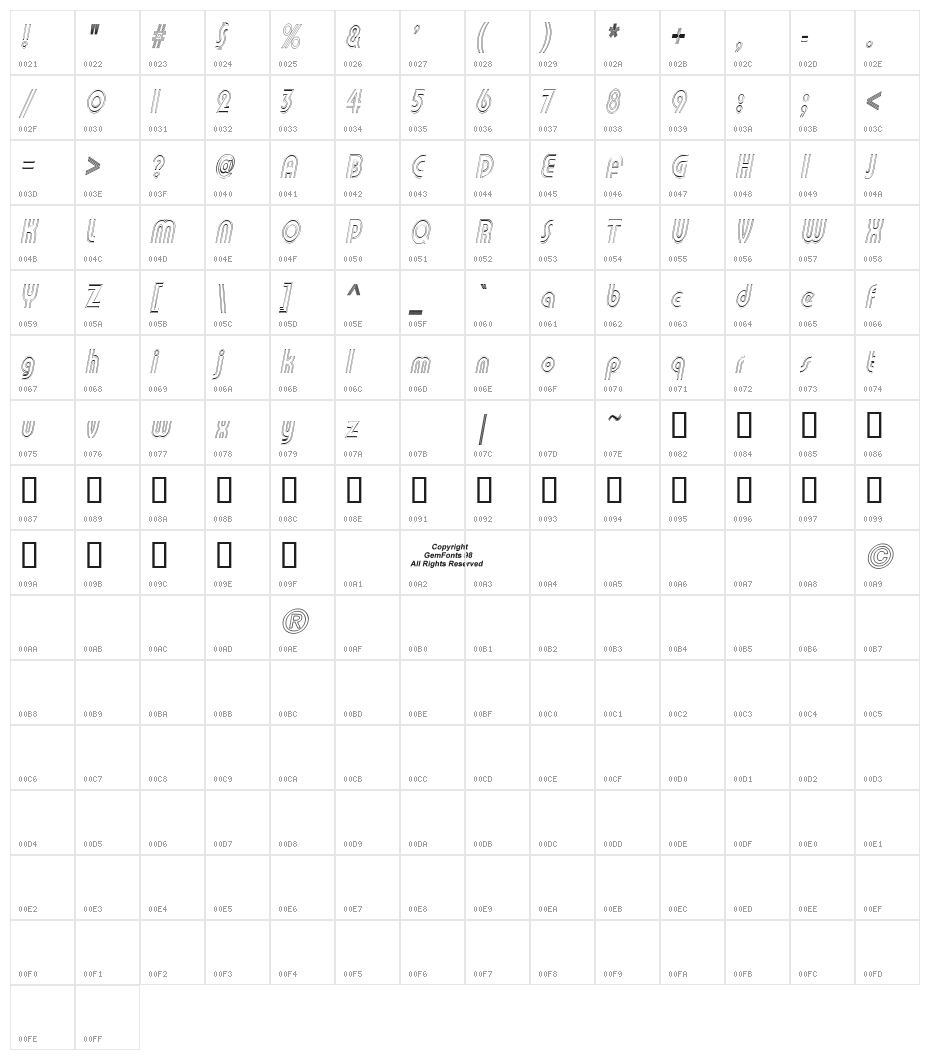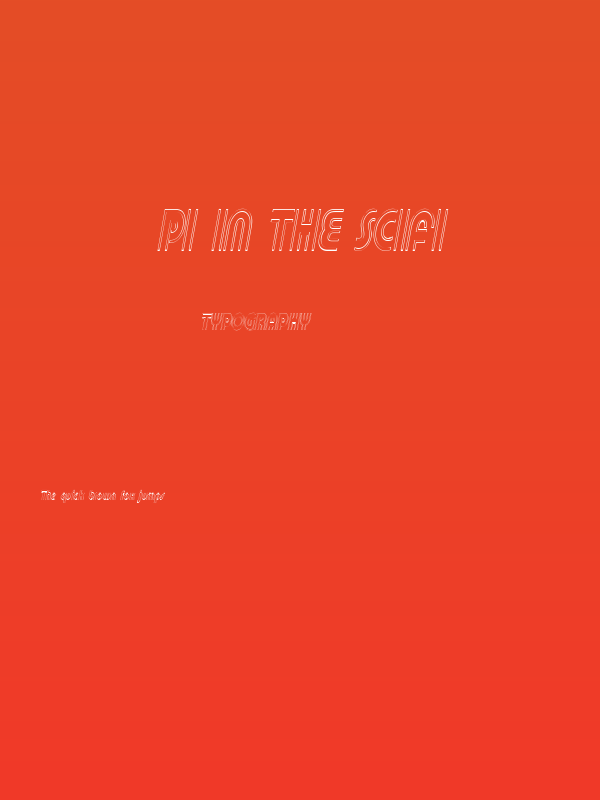
Pi in the SciFi Font
Pi in the SciFi Description
This font features a futuristic and geometric design, characterized by its double-line structure that creates a sense of depth and dimension. The letters are bold and angular, with a consistent stroke width that gives it a clean and modern appearance. The uppercase and lowercase letters maintain a uniform style, enhancing readability while adding a unique flair. Numbers and special characters are designed with the same attention to detail, ensuring a cohesive look across all elements. The font's distinct style makes it ideal for projects that require a contemporary and innovative touch.
Proposed ProjectsIdeal for sci-fi themed designs, tech branding, modern posters, and digital media.